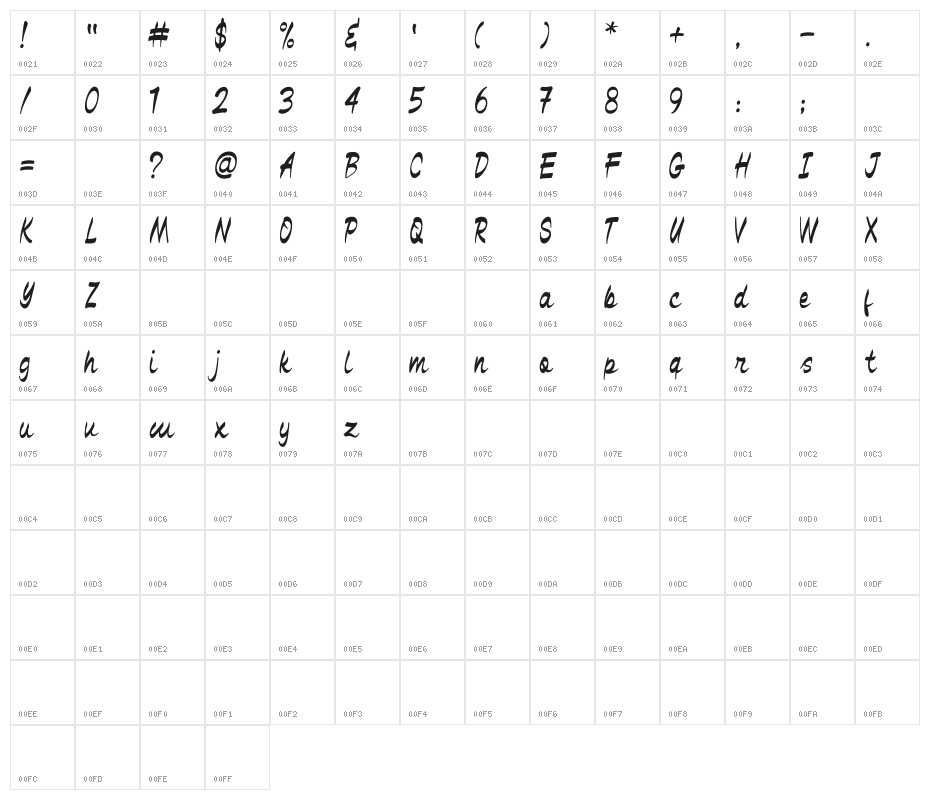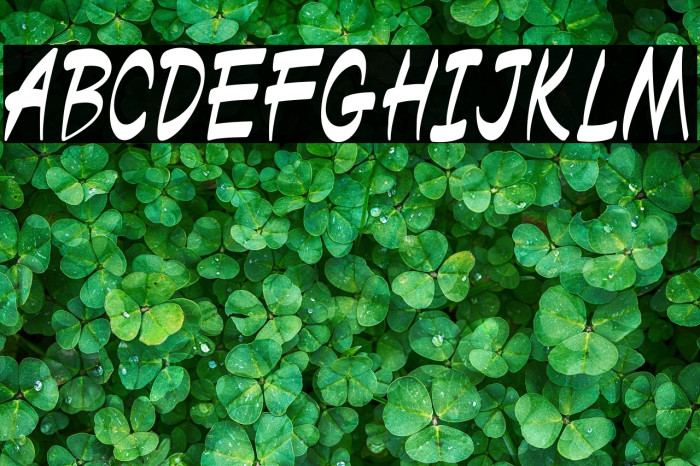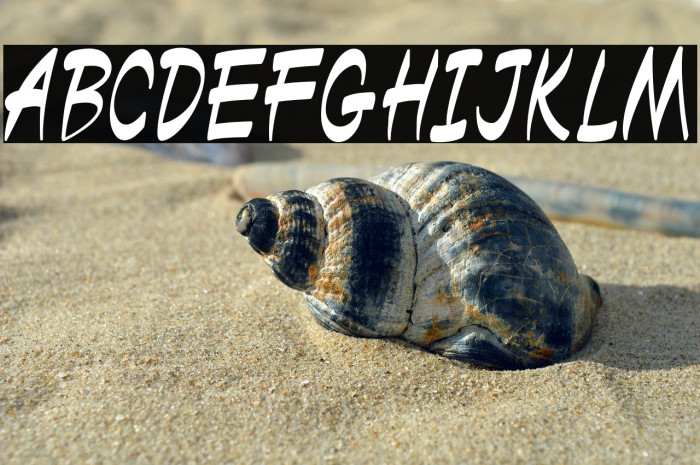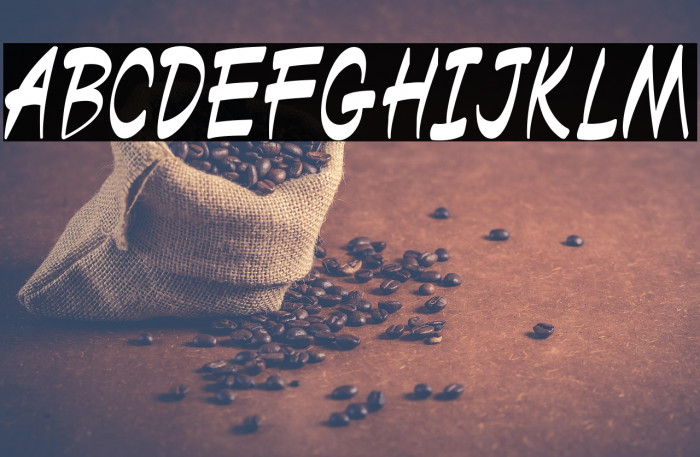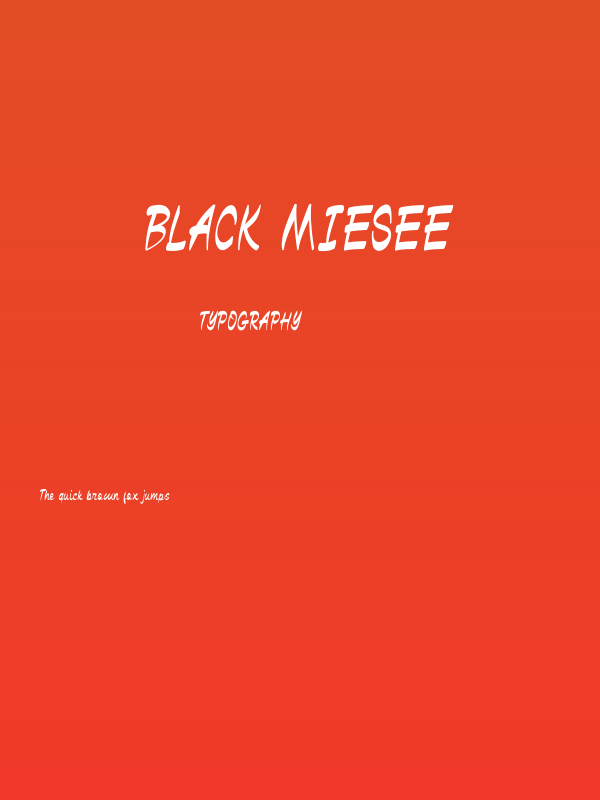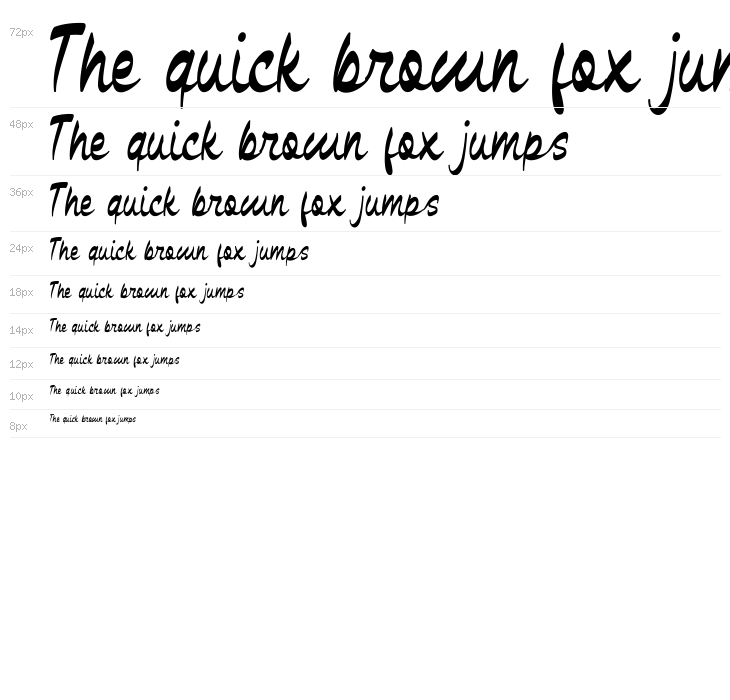
Black Miesee Font
Black Miesee Description
This font features a dynamic and expressive style with a handwritten appearance. The characters are bold and slightly slanted, giving a sense of movement and energy. The uppercase letters are tall and commanding, while the lowercase letters maintain a consistent flow. The numerals are clear and distinct, matching the overall lively aesthetic. Special characters are integrated seamlessly, maintaining the font's cohesive look. This font's unique style makes it suitable for creative and informal applications.